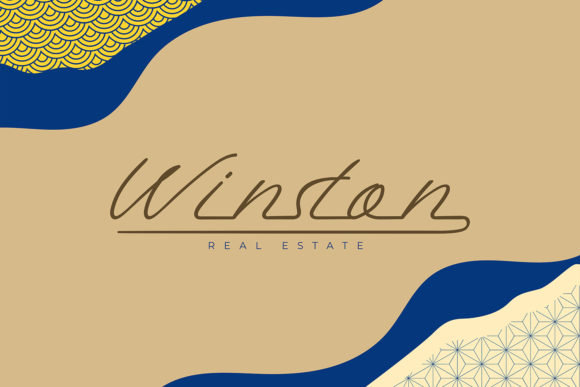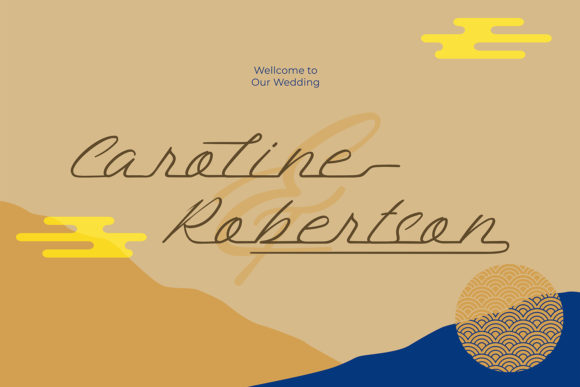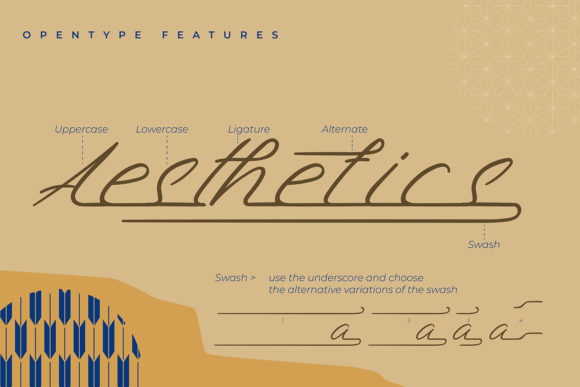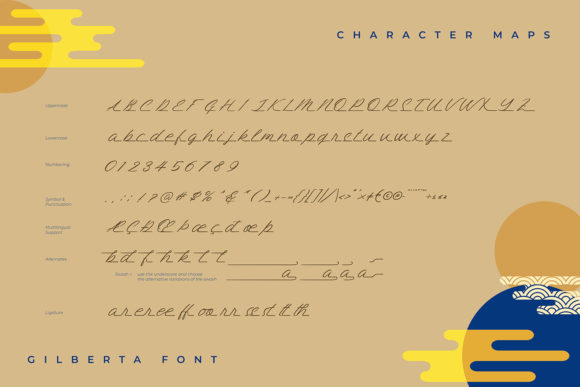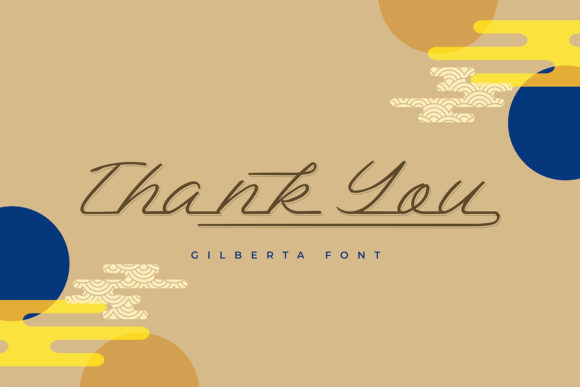
The Gilberta Font: A Quirky, Thin Handwritten Delight
I’ll never forget the design project that led me to discover the Gilberta font. I was working on a whimsical branding project for a crafty client, and I was struggling to find the perfect font to capture her unique personality. That’s when I stumbled upon Gilberta, a thin and quirky handwritten font that instantly resonated with my client’s aesthetic. In this article, I’ll share my love for Gilberta, its features, and how to make the most of it in your design projects.
An Honest Review of Gilberta
Gilberta has quickly become one of my go-to fonts for projects that require a touch of whimsy and personality. Here’s what I love about it:
- ✨ Unique and quirky handwritten style that’s perfect for creative projects
- ✅ Thin and elegant lines that add a touch of sophistication
- 💫 Highly legible, even at small font sizes
- 🎨 Versatile and suitable for a wide range of design applications
While Gilberta is an amazing font, it’s not without its quirks. Here are a few things to keep in mind:
- 🤔 Some letters may appear a bit awkward or uneven, which can be a deliberate design choice but might not work for every project
- ⚠️ Limited availability of extended language support
- Explore OpenType features, such as Stylistic Alternates and Swashes, to add more personality to your text
The Story Behind Gilberta
Gilberta was designed with the intention of creating a unique, eye-catching handwritten font. The designer aimed to craft a font that would capture the essence of a personal, handwritten note, while still being elegant and refined. The result is a font that’s both quirky and sophisticated, perfect for designers looking to add a touch of personality to their work.
| Font Name | Gilberta Font |
| Author | Vunira |
| What is Gilberta best used for? | Gilberta is perfect for creative projects, such as branding, packaging, and advertising, where a unique and quirky font is desired. |
| Is Gilberta suitable for body text? | While Gilberta is legible, it’s best used for headlines, titles, and short paragraphs. For longer body text, a more traditional font might be more suitable. |
| Does Gilberta support OpenType features? | Yes, Gilberta supports OpenType features, such as Stylistic Alternates and Swashes, which can be accessed in compatible design software. |